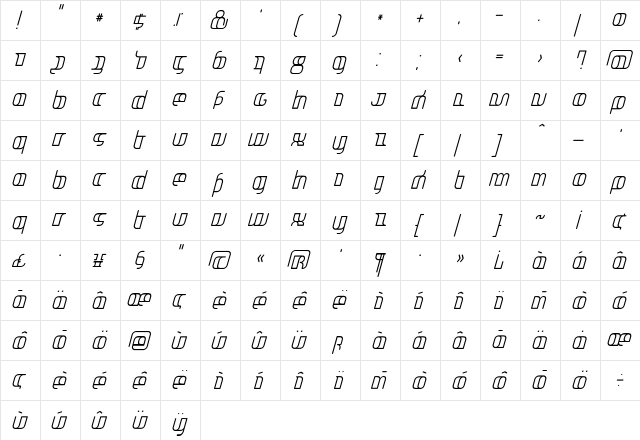
Jakone CondensedItalic
Design Context for Jakone Typeface
Jakone offers clean, dependable letterforms without strong stylistic allegiance, making it a practical choice for designers who need flexibility. The dynamic lean of this cut emphasises speed and emphasis in any layout. The condensed width makes it efficient for tight spaces without sacrificing legibility.
Pro Tip: Try Jakone for annotation and caption copy alongside an upright companion — the contrast in angle creates a dynamic but ordered typographic system.